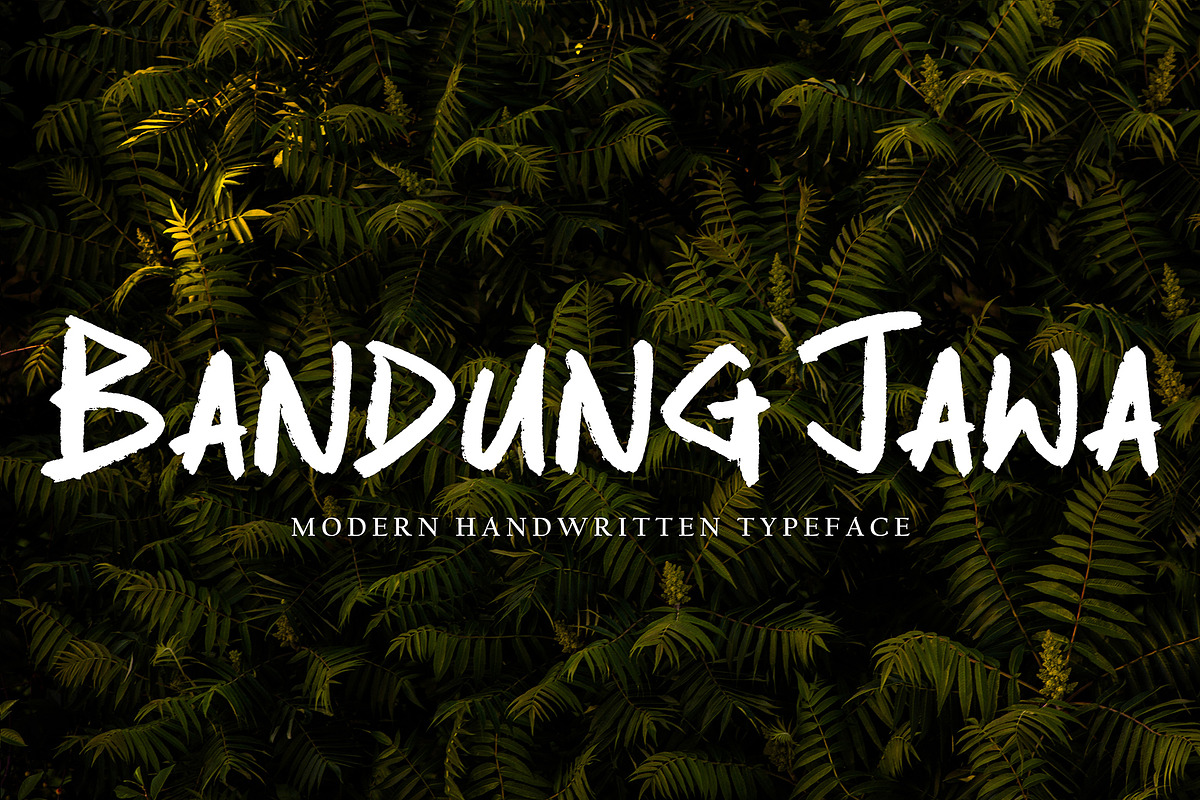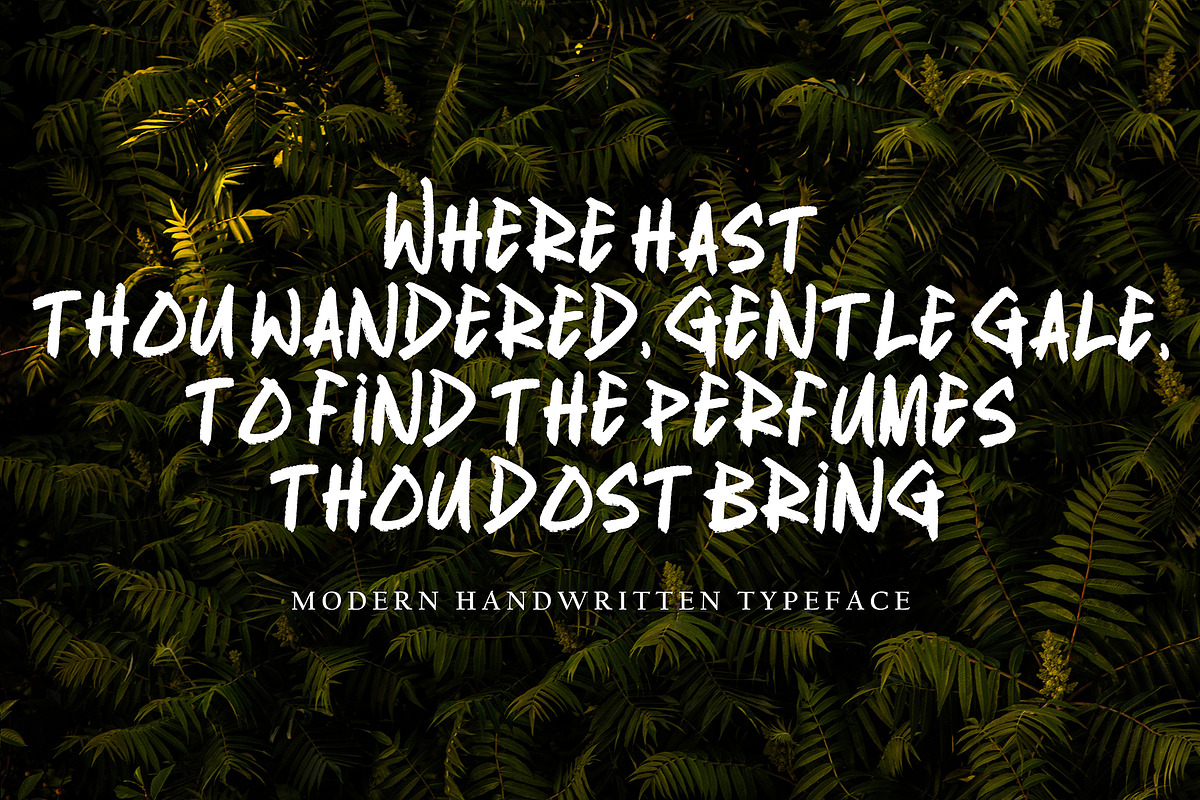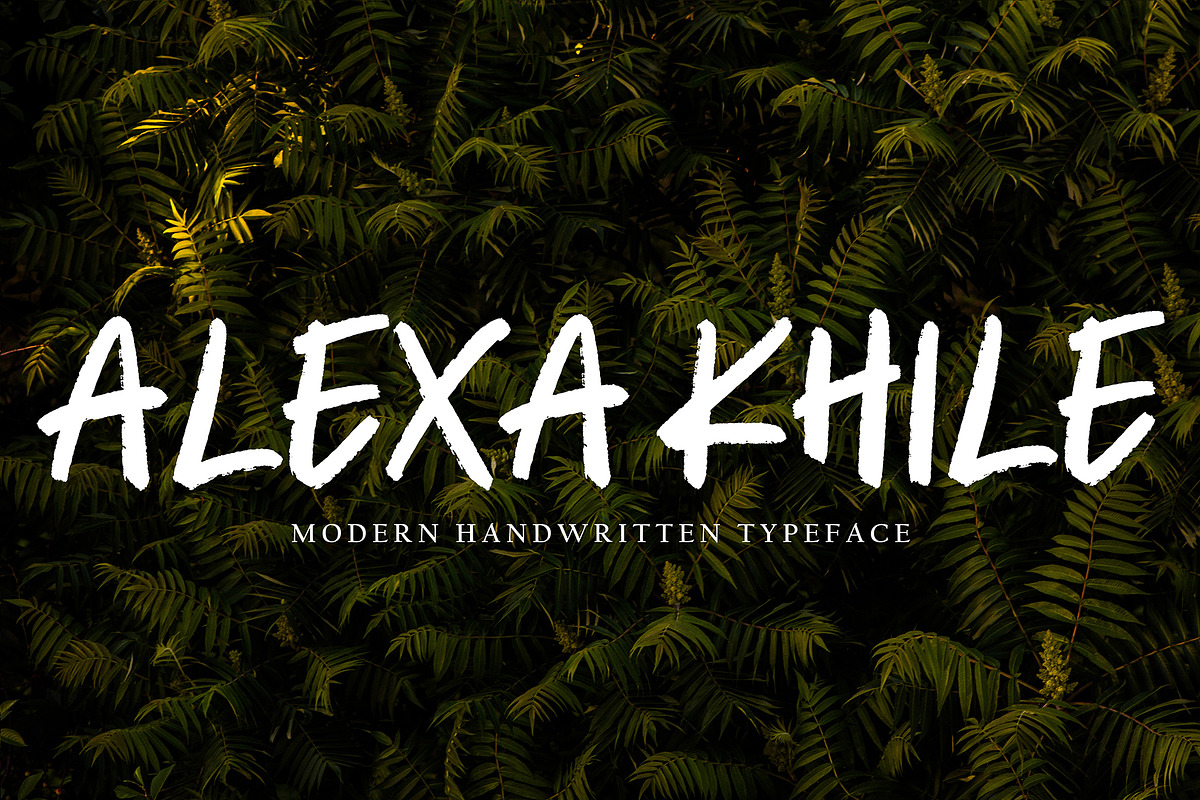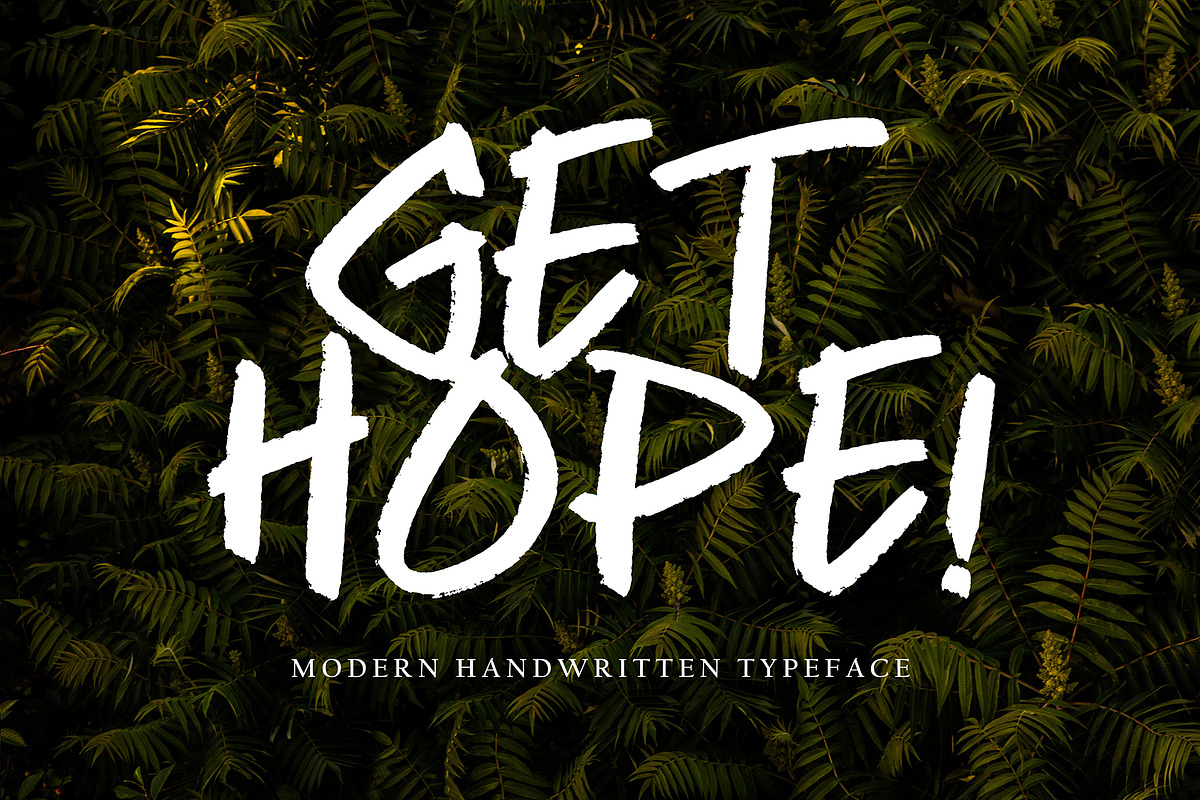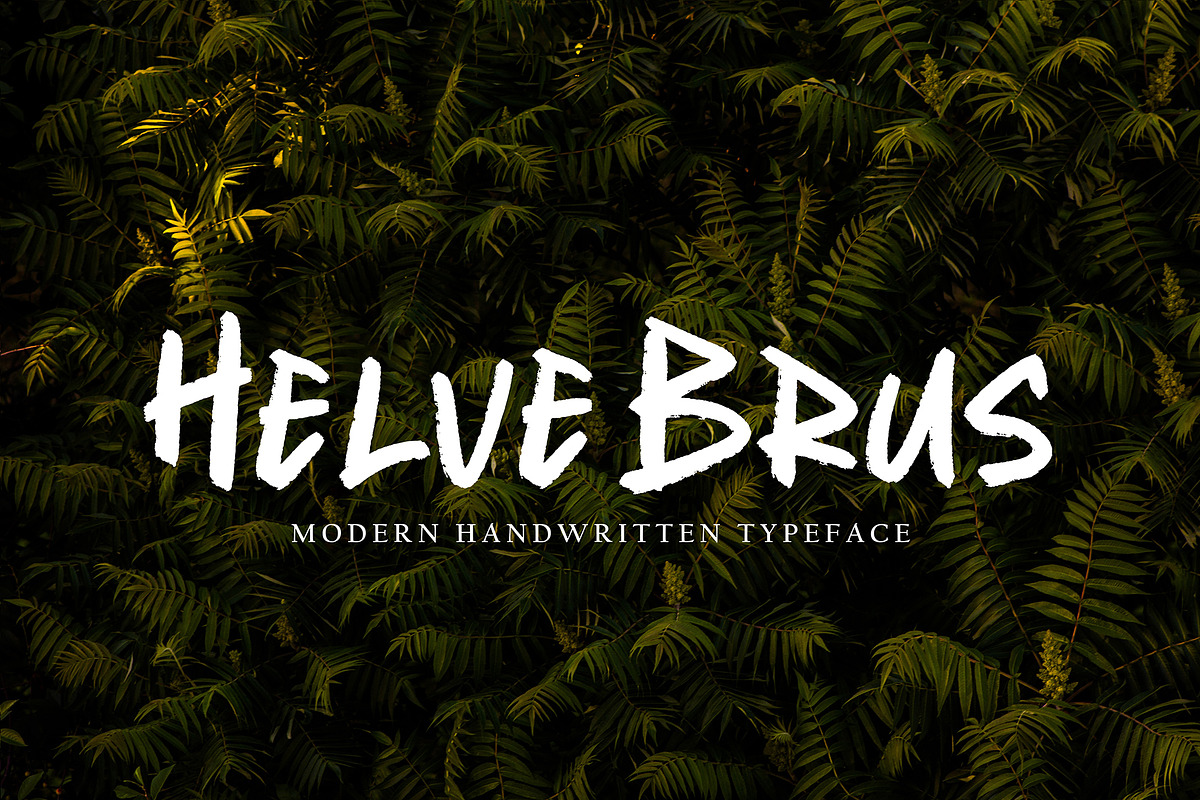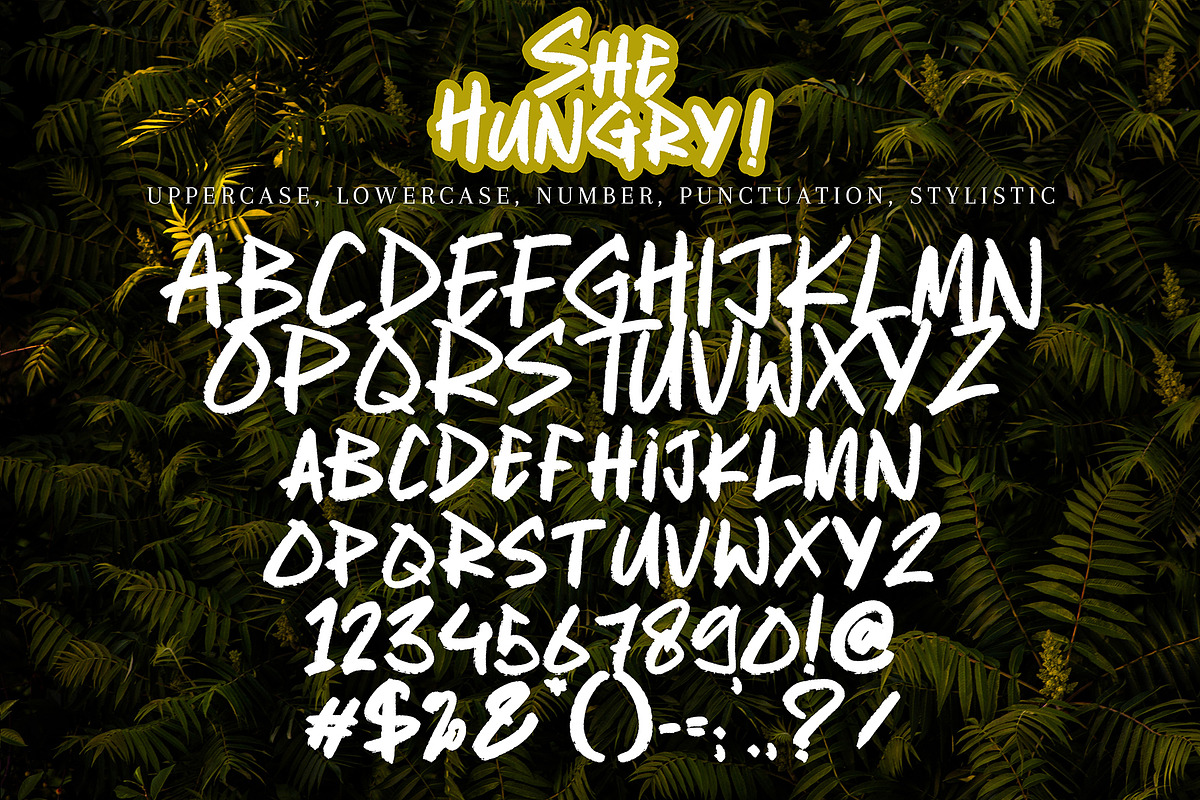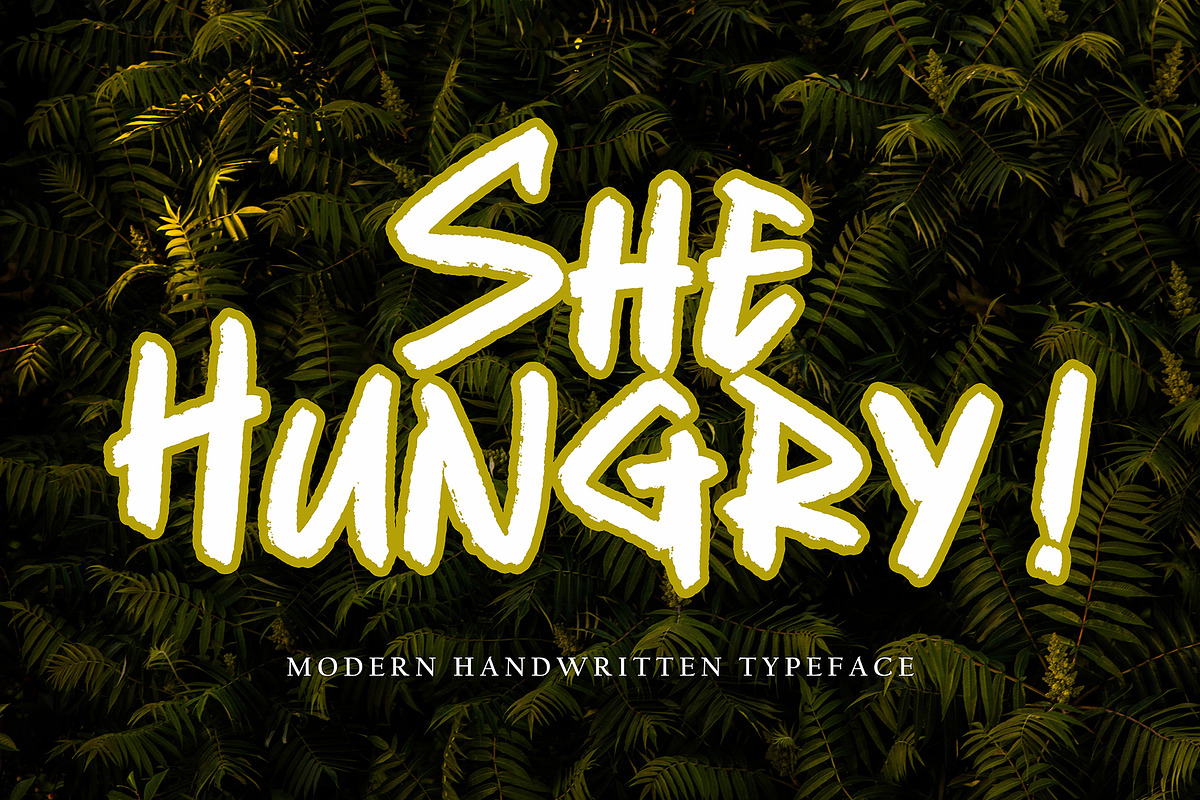
She Hungry
She Hungry with new style, this font will perfect for many different project ex: quotes, logo, blog header, poster, banding, letter, invitation, stationery, etc...